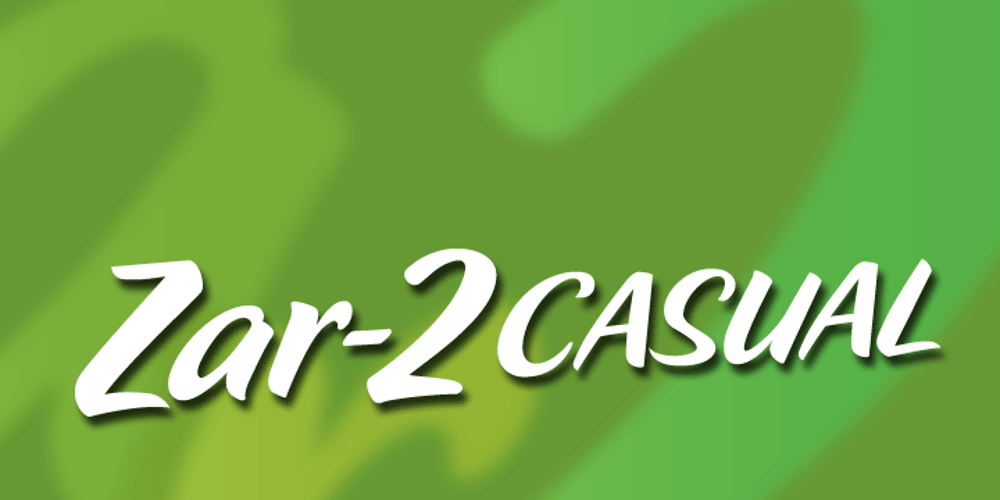
Zar2 Casual
Zar2 Casual font
Zar2 Casual Font Family was designed by Randy Szarzynski and published by SzarDesign. Zar2 Casual contains 1 styles and family package options. Zar-2 Casual is great for informal fun graphics, pairs well with Zar-2 Script.